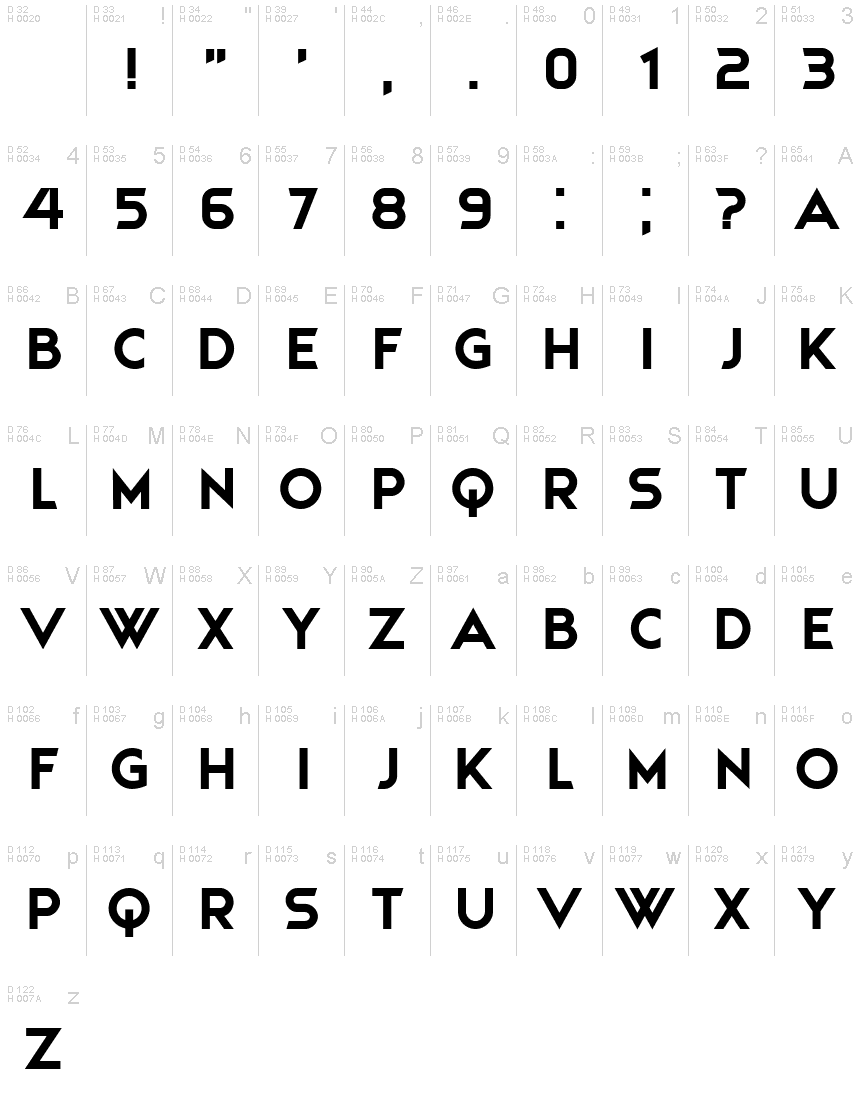
Pudding Regular
Pudding, a bold sans serif font designed by Vladimir Nikolic, adds a touch of elegance and modernity to any project. Its semi-expanded width enhances readability and allows for greater visual impact.
Ideal for branding materials, Pudding exudes confidence and professionalism, making it perfect for logo designs, advertisements, and packaging. With its clean lines and bold presence, this versatile typeface also shines in editorial layouts such as magazines and brochures.
Elevate your designs with the delectable Pudding font – a tasteful choice that leaves a lasting impression.